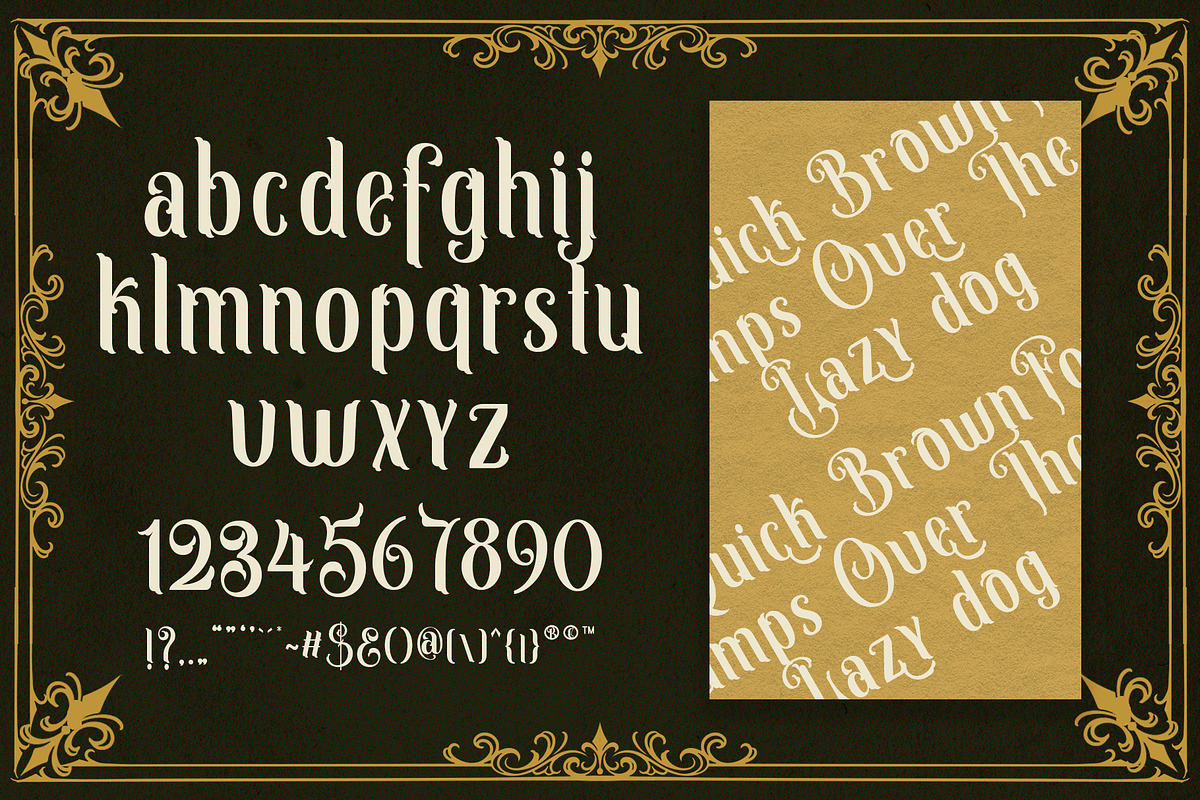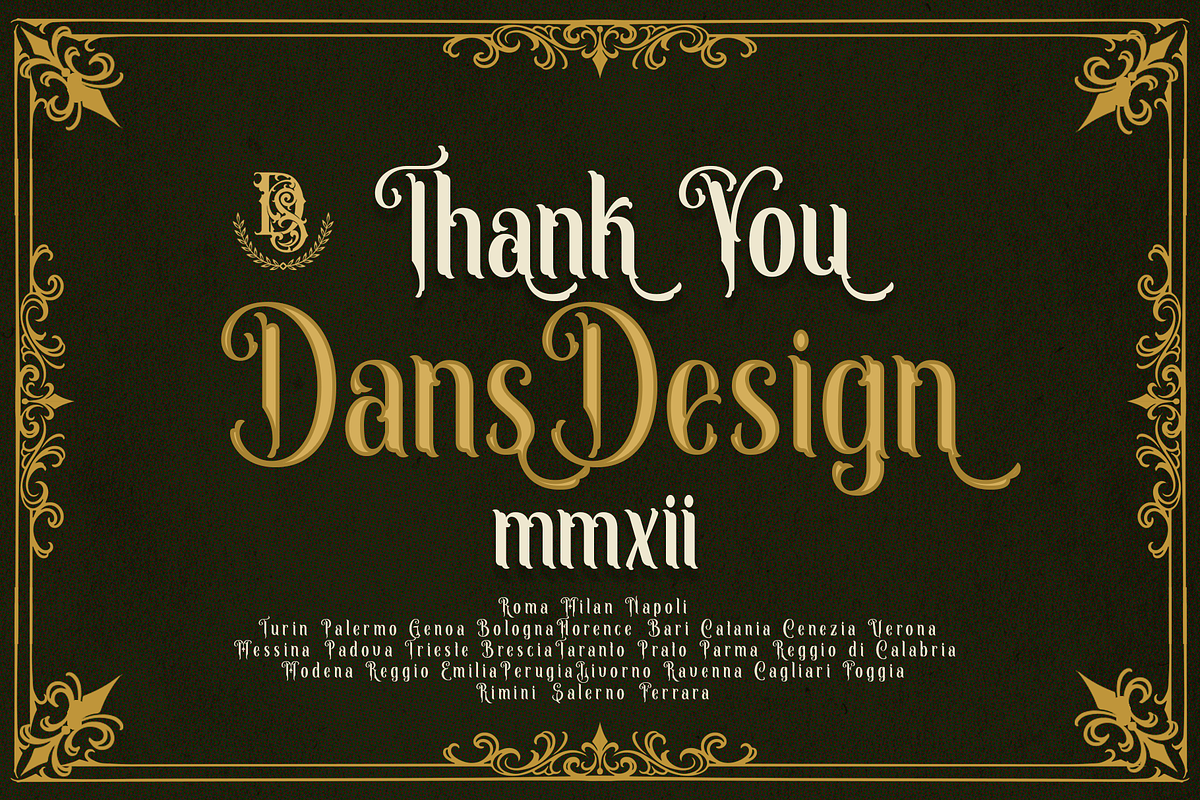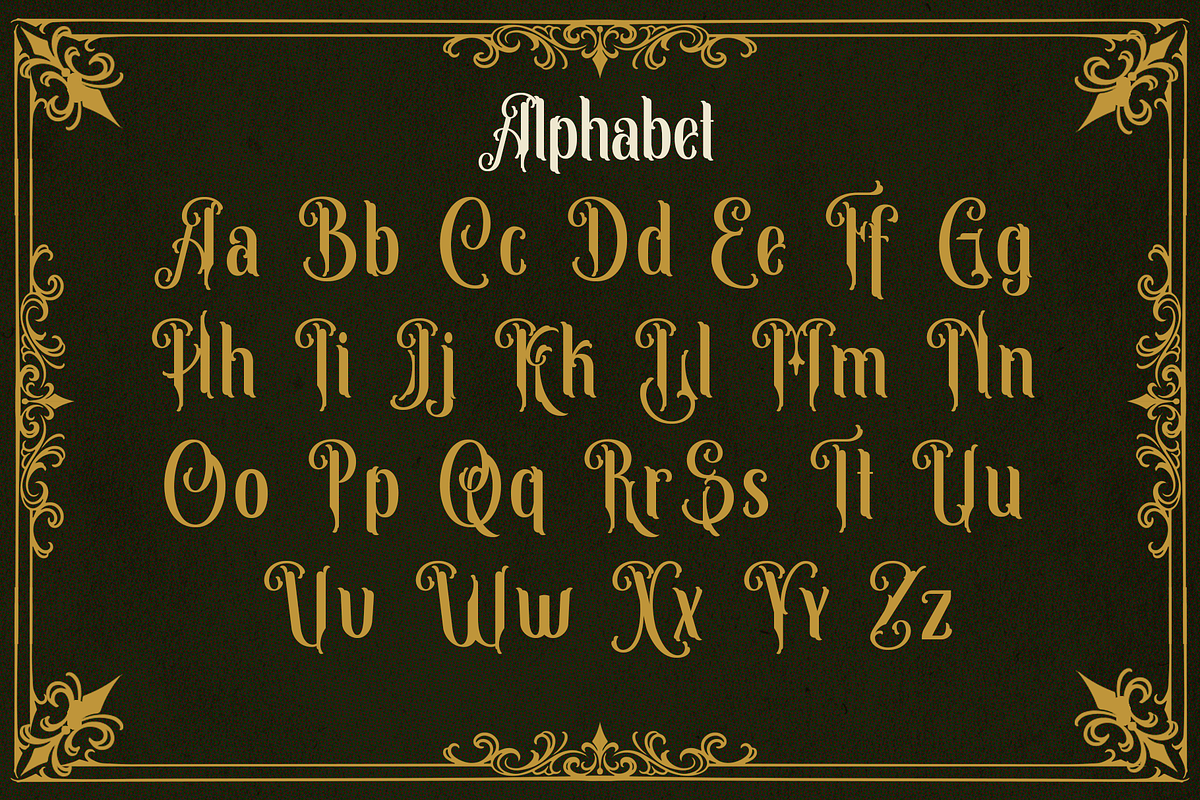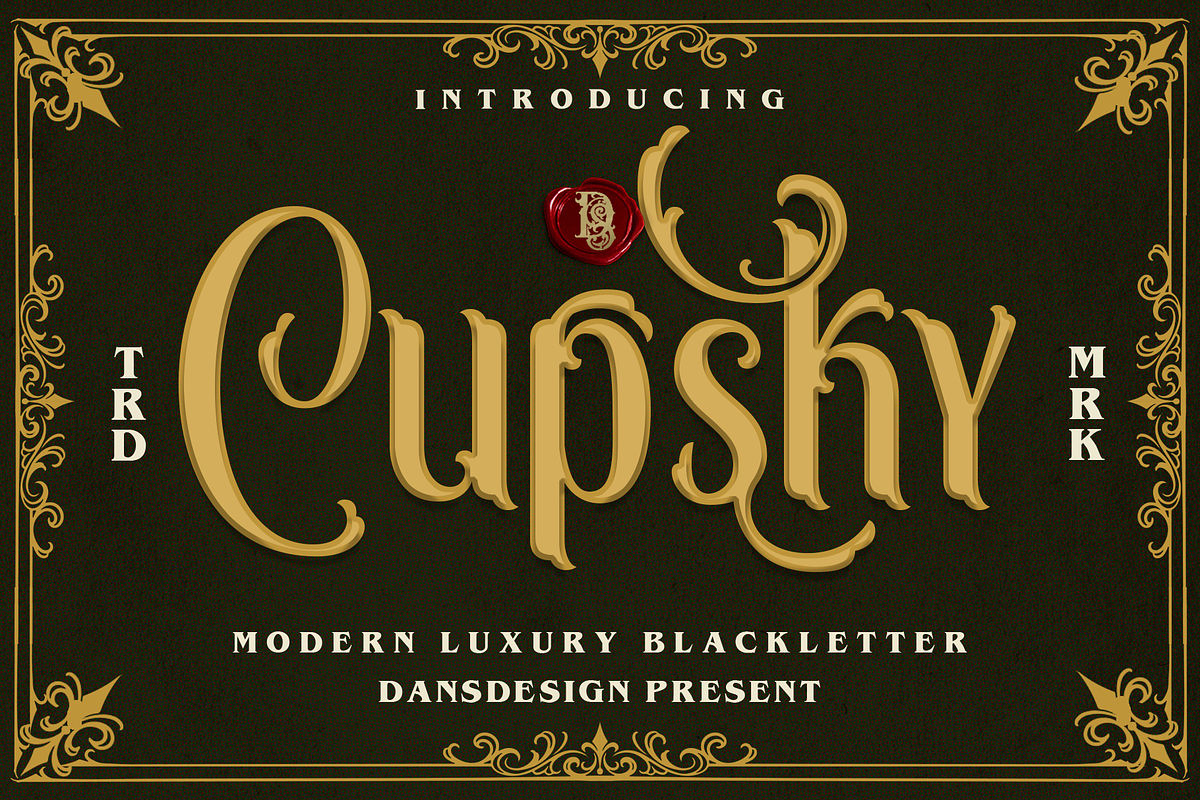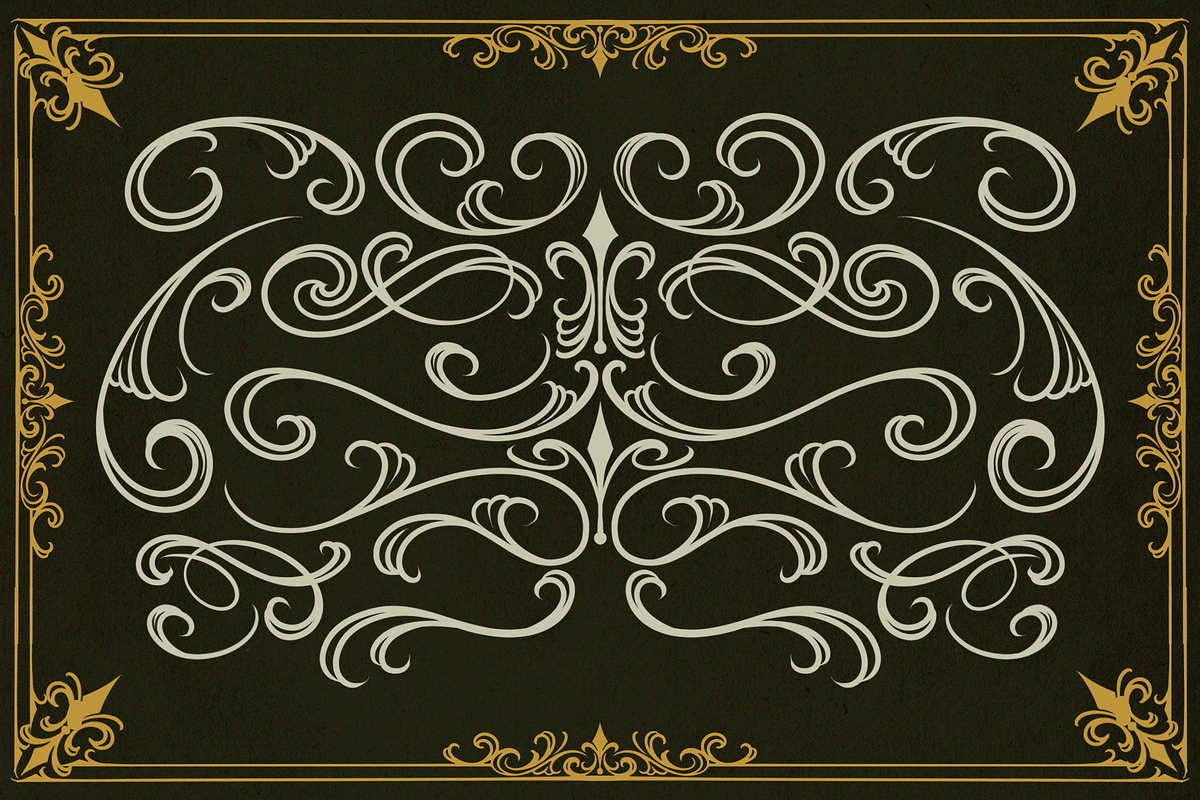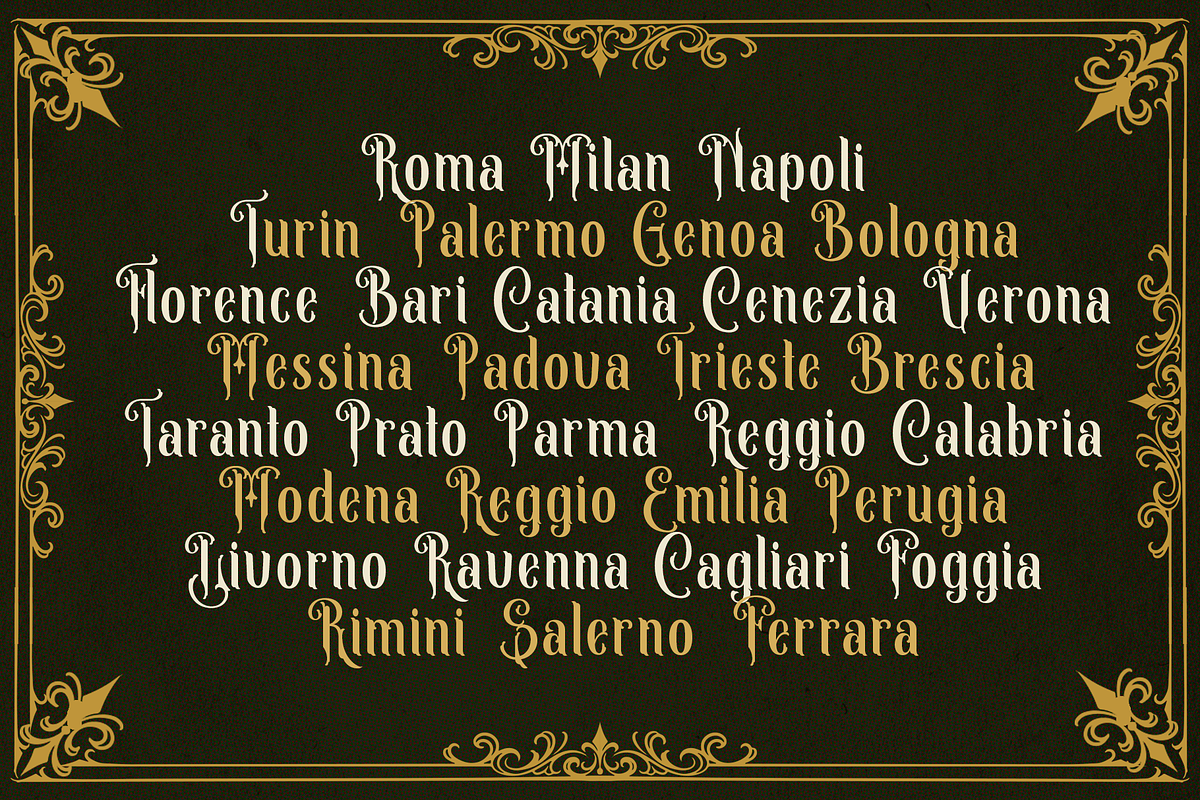
Cupsky
Cupsky is a victorian styled and distinct blackletter font. Fall for its ravishing style and use it to create gorgeous wedding invitations, beautiful stationary art, eye-catching social media posts, and much more!